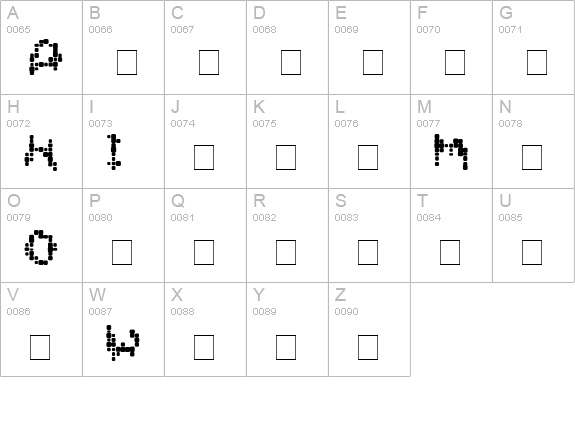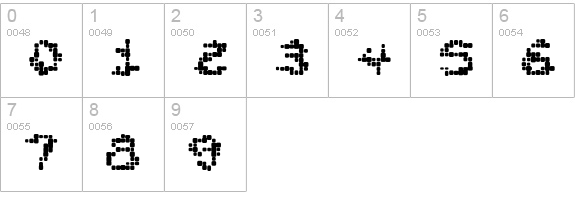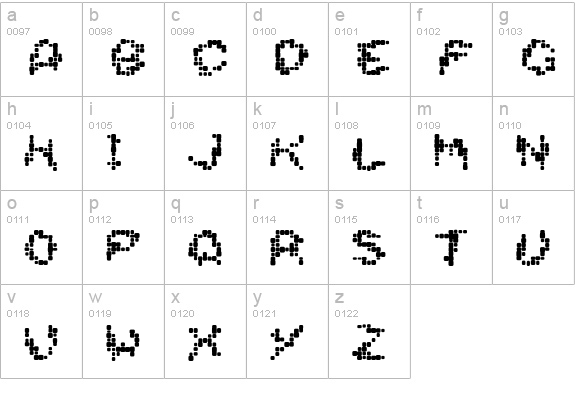
DirtyHead Font Details
Introducing DirtyHead font, a bold and edgy typeface that exudes a rebellious and urban vibe. This font is perfect for projects that require a gritty and unconventional touch, making it ideal for poster designs, album covers, and streetwear branding. With its rugged and distorted letterforms, DirtyHead font brings a sense of raw energy and attitude to any design. The uneven strokes and jagged edges give this font a unique and handcrafted feel, perfect for adding a touch of urban flair to your creative projects. And the best part? DirtyHead font is completely free to download at FontsMarket.com, allowing you to easily incorporate this striking typeface into your designs without breaking the bank. Don't miss out on the opportunity to add a bold and rebellious touch to your next project with DirtyHead font. Download it now and unleash your creativity!